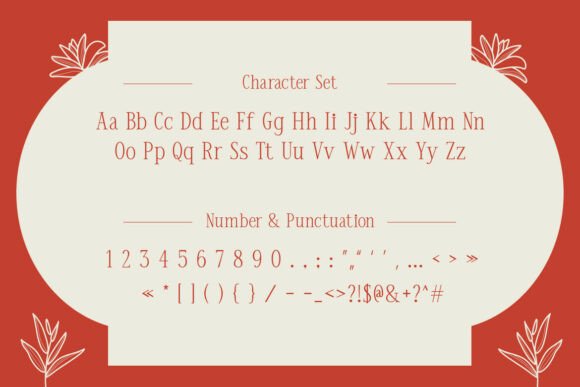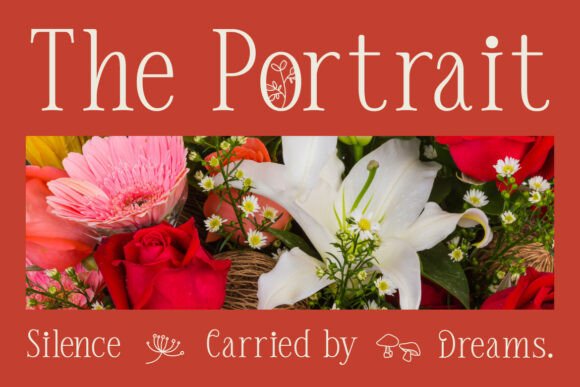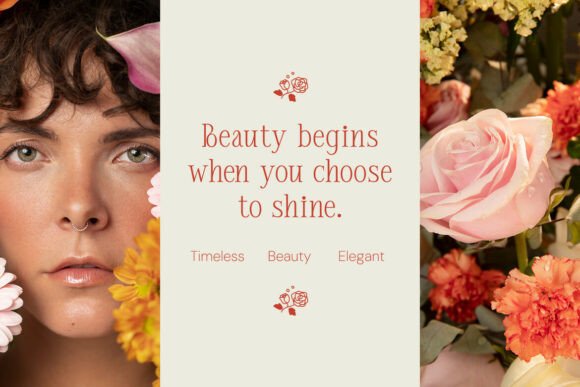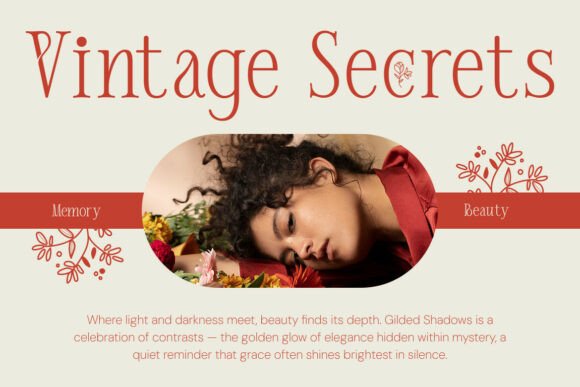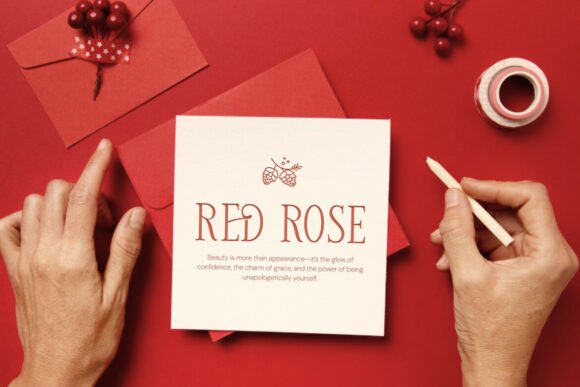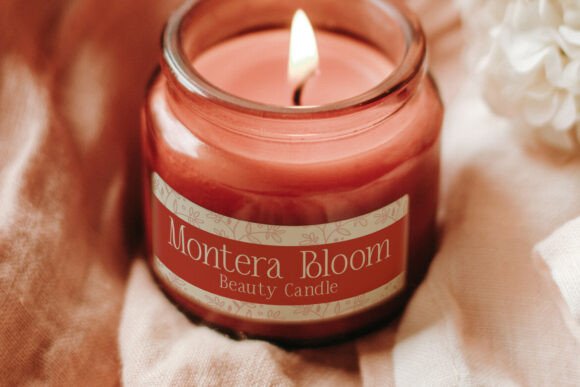
Introduction to Montera Bloom Font
Montera Bloom is a timeless serif typeface designed with elegance and refinement.
Its tall letterforms, delicate curves, and fine serifs bring a sense of classic sophistication to your designs Perfect for branding, magazines, invitations, packaging, and more, Montera Bloom elevates any design with its graceful and professional character.
Key Features of Montera Bloom Font
Why Choose Montera Bloom Font?
Montera Bloom Font offers exceptional quality and versatility, making it a valuable addition to your design toolkit. Whether you’re creating for personal projects or commercial use, Montera Bloom Font delivers professional results.